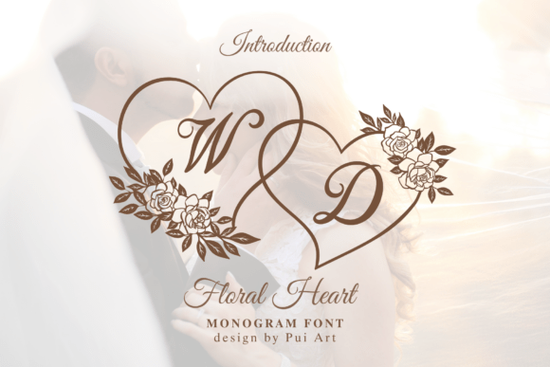
If you’re working on wedding stationery, personalized gifts, or romantic craft projects, the Floral Heart Monogram Font brings a soft, elegant touch that feels both luxurious and handmade. It’s not just another script font each letter from A to Z is framed inside a delicate floral heart, making it ideal for monograms, logos, and keepsakes that need a personal, feminine flair.
Whether you’re designing invitations for a friend’s big day or creating custom mugs and shirts to sell online, this font helps your work stand out without needing extra graphics. The curves are smooth, the spacing feels intentional, and the floral frames add charm without overwhelming the letterform. If you’ve ever used Barbara, you’ll appreciate how this one leans even more into romantic detailing while keeping readability intact.
What kinds of projects does this font work best for?
It’s built with real-world crafting in mind. Here’s where it shines:
- Wedding invitations and save-the-dates Pair it with clean sans-serif fonts for contrast, and let the monogrammed initials take center stage.
- Cricut and Silhouette cut files The outlines are crisp and ready for vinyl, cardstock, or heat transfer paper.
- Personalized gifts Think engraved wood signs, ceramic mugs, tote bags, or even embroidered patches.
- Branding small boutiques or bridal shops Use it for logo accents, social media banners, or packaging labels.
- Stickers and planner decor Especially popular in wedding planners or journals for brides-to-be.
You don’t need advanced design skills to make it look good. Even dropping a single initial onto a blank background gives you something eye-catching. For print-on-demand sellers, it’s a quick way to offer “custom monogram” listings without hours of manual design work.
How does it compare to other decorative fonts?
Many ornate fonts sacrifice legibility for style. This one doesn’t. The script remains fluid and readable even at smaller sizes, and the floral heart frame wraps neatly around each character without crowding it. If you’ve tried fonts like this one before, you know how rare that balance is.
It also includes uppercase letters only (A–Z), which keeps the file size manageable and ensures consistency across designs. No alternate glyphs or ligatures to worry about what you see is what you get, and that simplicity is part of why crafters love it.
Any tips for pairing it with other typefaces?
Avoid pairing it with anything too busy. Since the floral heart frame already adds visual weight, go for clean, minimalist companions:
- A thin sans-serif like Montserrat Light or Raleway for names and dates.
- A classic serif like Playfair Display for longer text blocks.
- Handwritten scripts only if they’re very light and understated otherwise, things get visually noisy.
Also, give it breathing room. Don’t cram other elements too close. Let the monogram be the focal point, especially in logos or gift tags.
Quick checklist before you start:
- Test print or cut a sample Make sure the fine lines in the floral frame hold up on your chosen material.
- Use high contrast Dark ink on light backgrounds (or vice versa) makes the details pop.
- Scale wisely Avoid shrinking it below 0.5 inches; those tiny petals need space to stay visible.
- Layer with textures Try placing it over watercolor washes, linen patterns, or gold foil effects for extra depth.
This isn’t a font you use every day it’s for when you want to add that thoughtful, handcrafted romance. Whether you’re making something for yourself or building a product line, it delivers charm without complication.